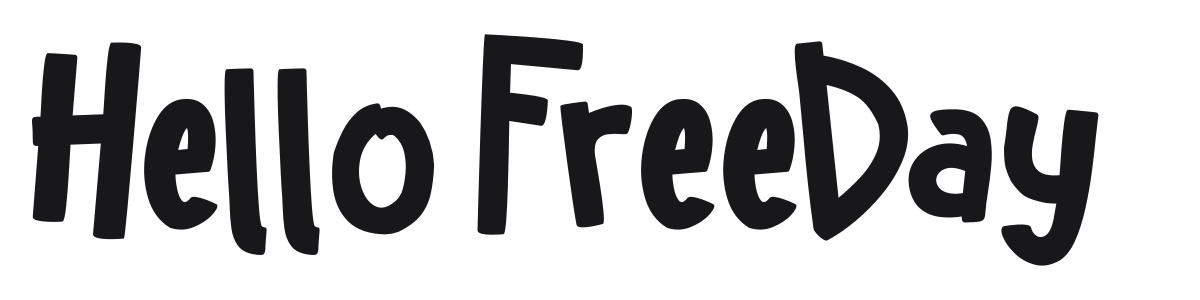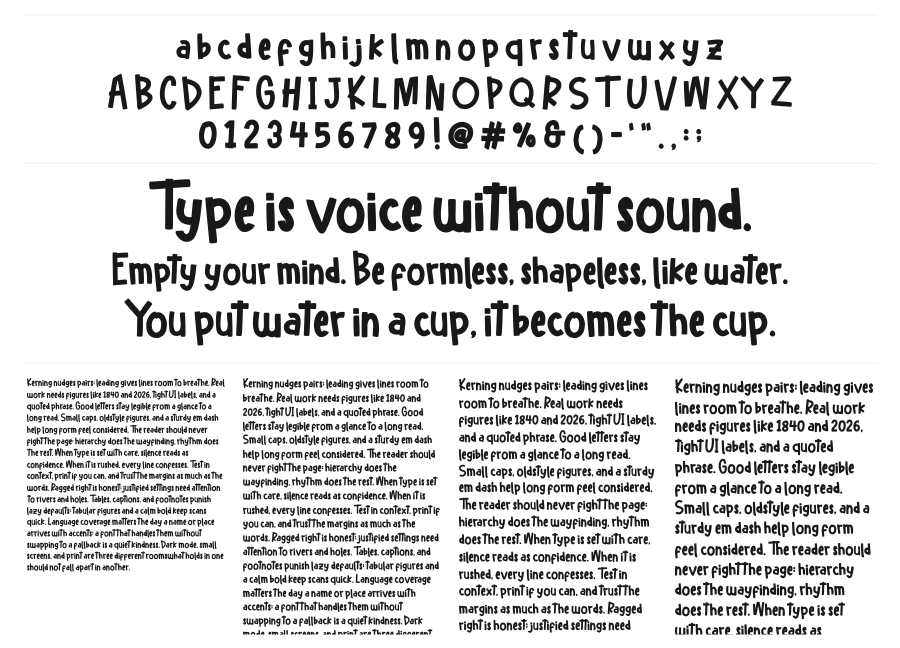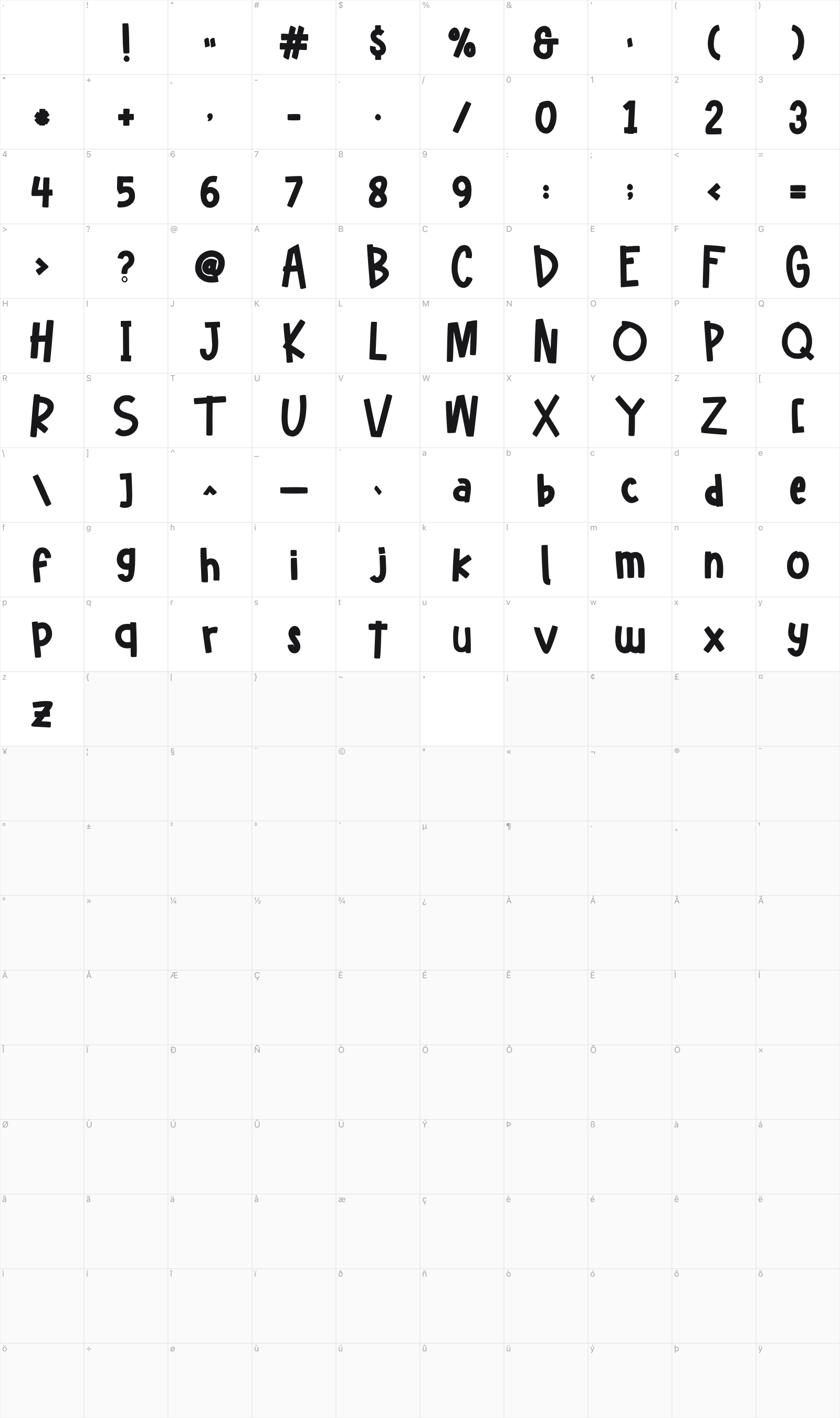
Hello FreeDay
Hello FreeDayis a bold hand-drawn casual font with chunky, irregular characters and a relaxed, spontaneous energy. The slightly uneven baseline and rounded terminals make it feel genuinely handcrafted rather than mechanically produced. It brings warmth and personality to logos, packaging, and any headline that needs a human touch.